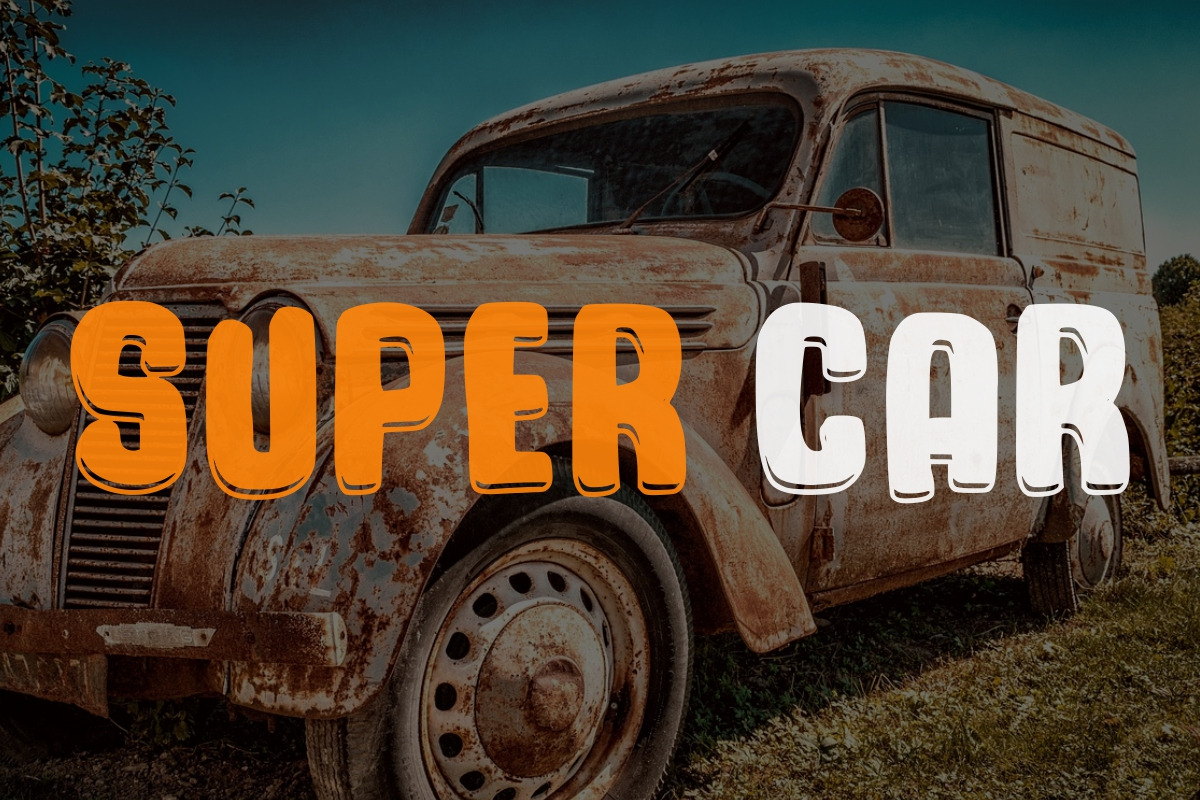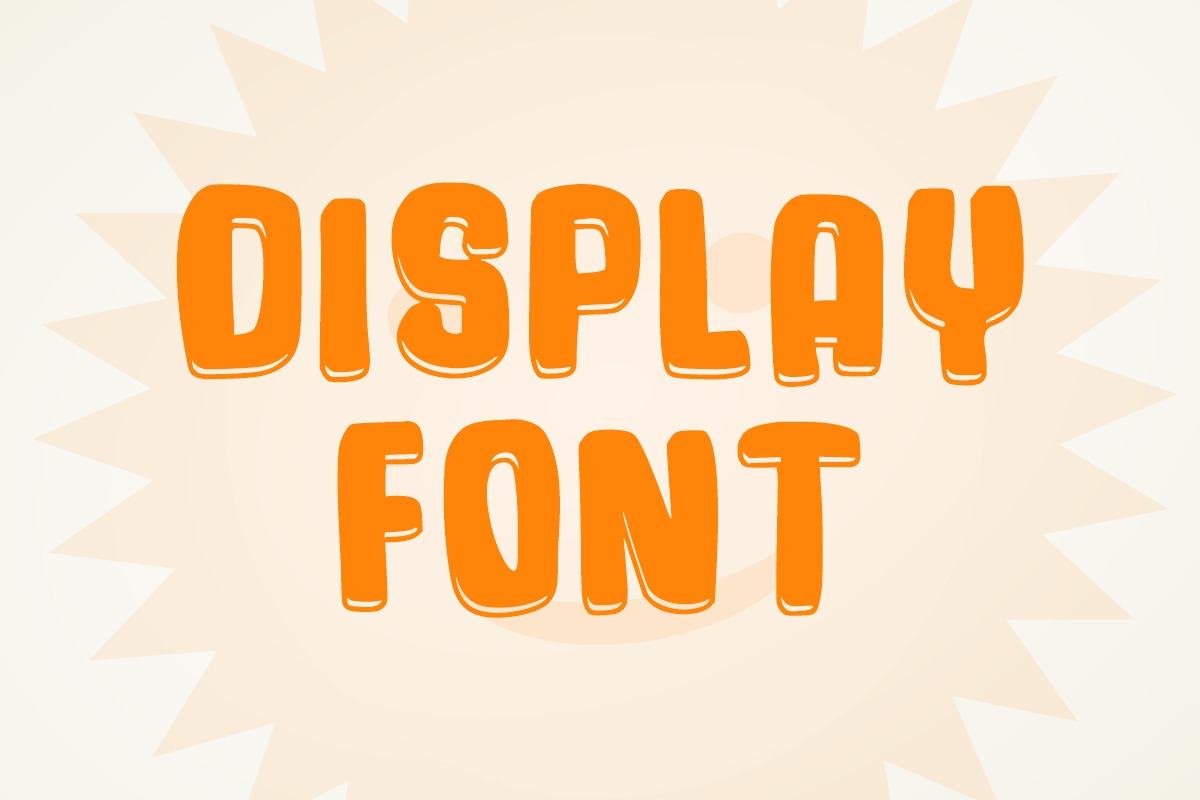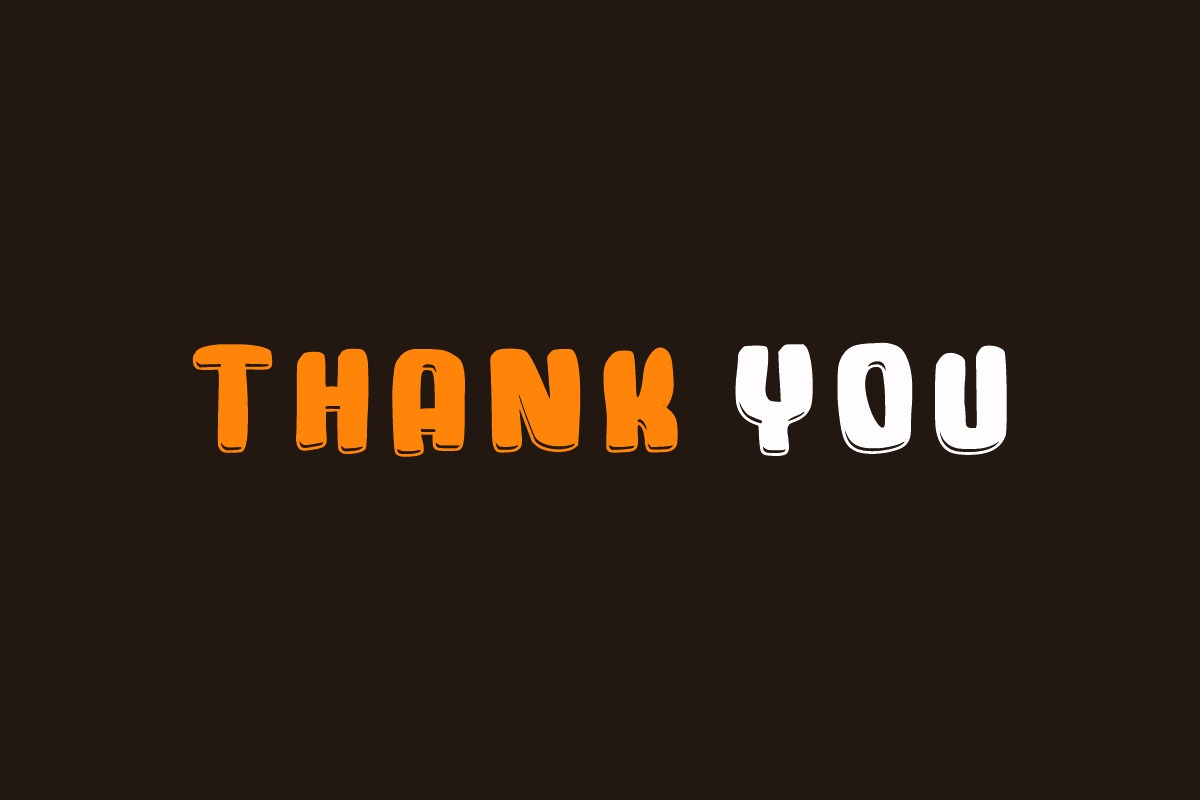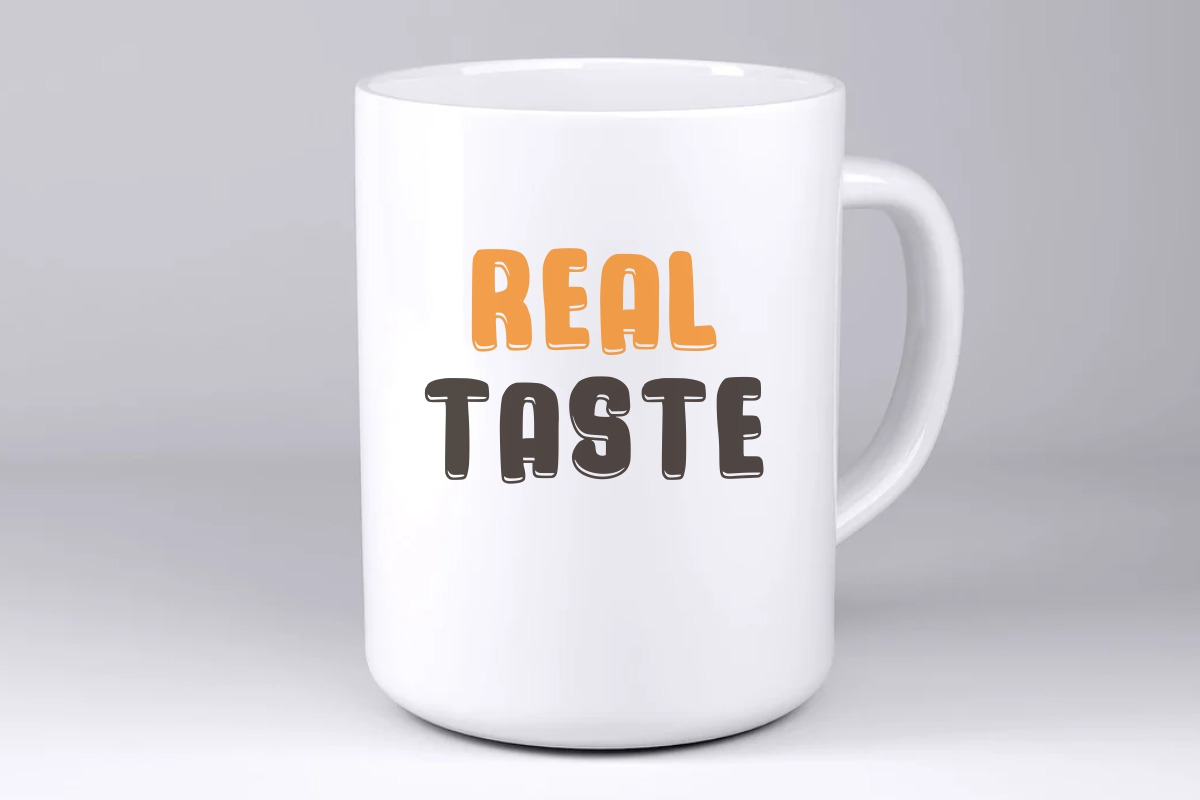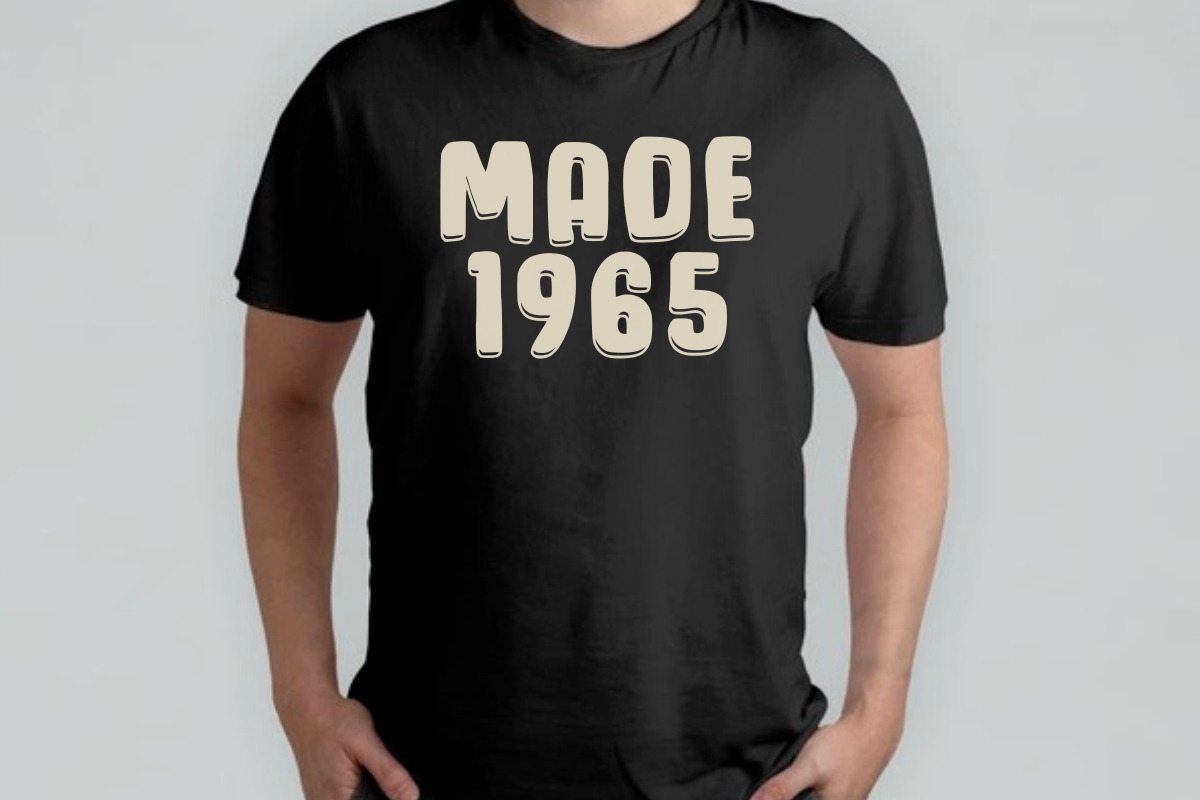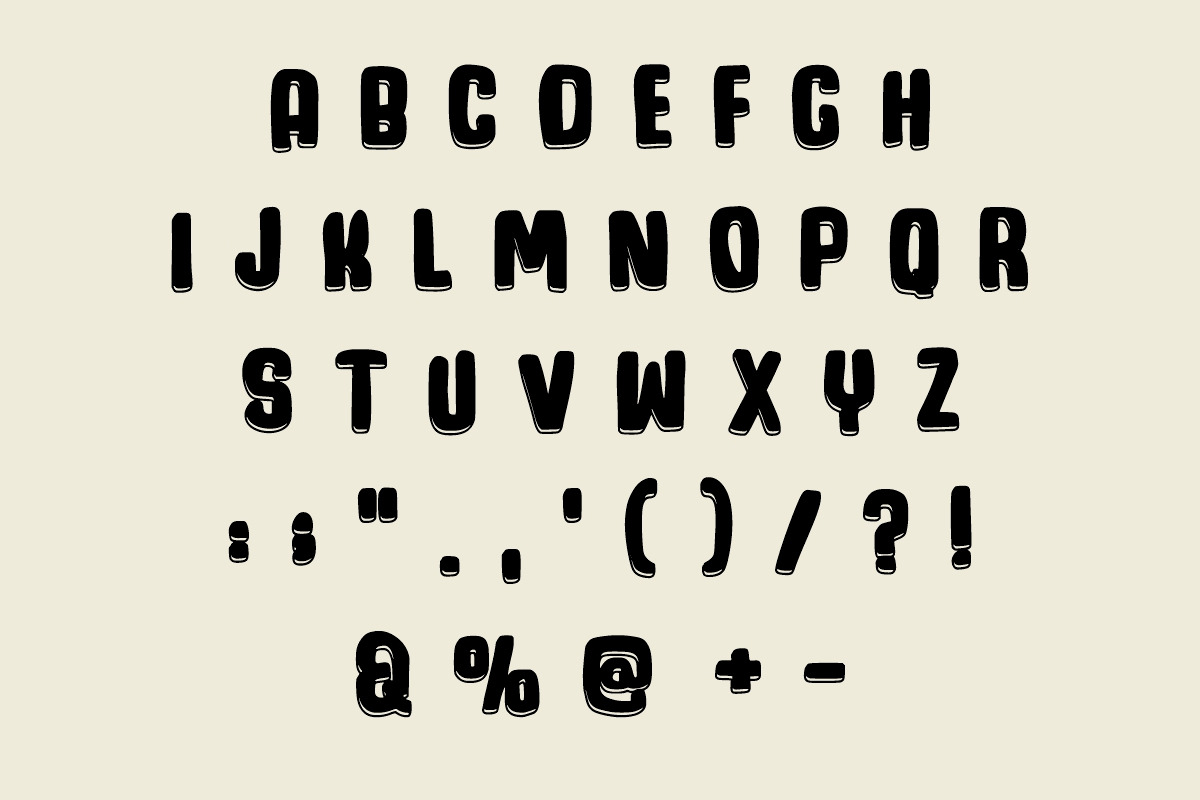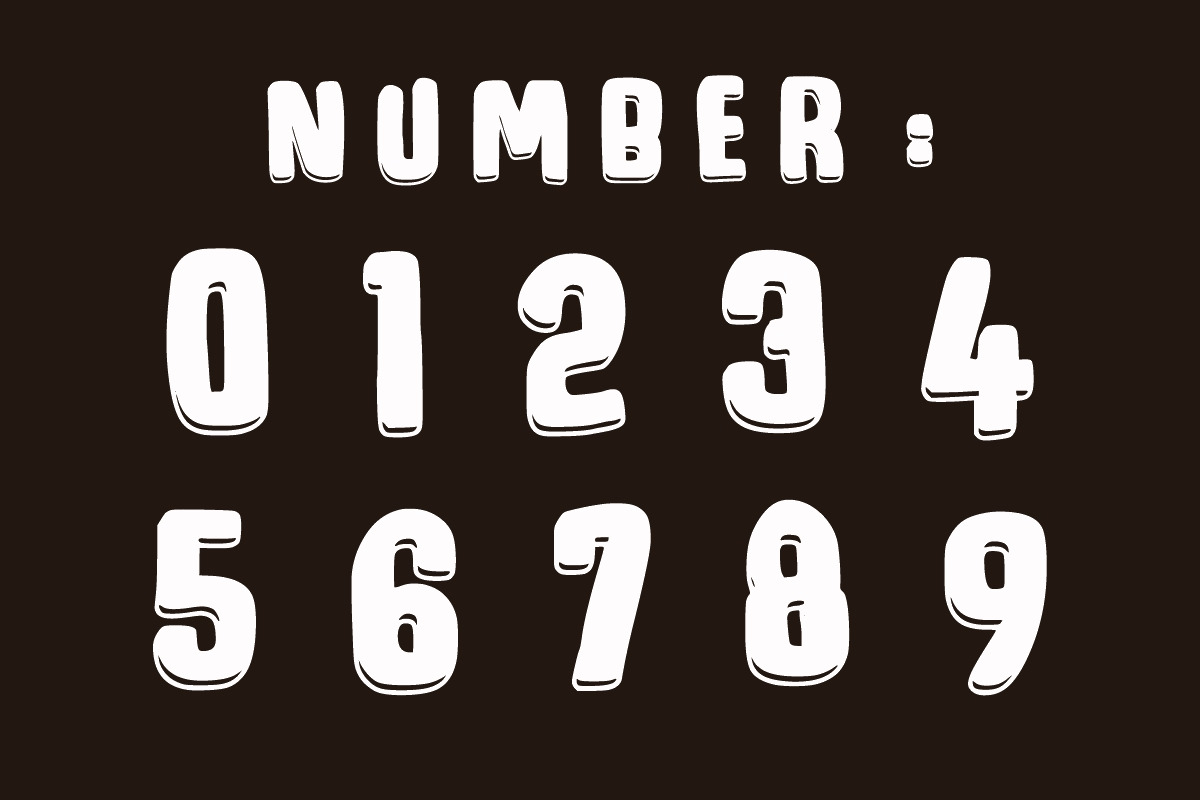
Sunday Morning
Sunday Morning is a cool and bold-looking display font. It features a dynamic effect and a unique charm. It is perfect for headlines, sporting events, automotive posters, school posters, text effects, templates, logos, or monogrammed designs.